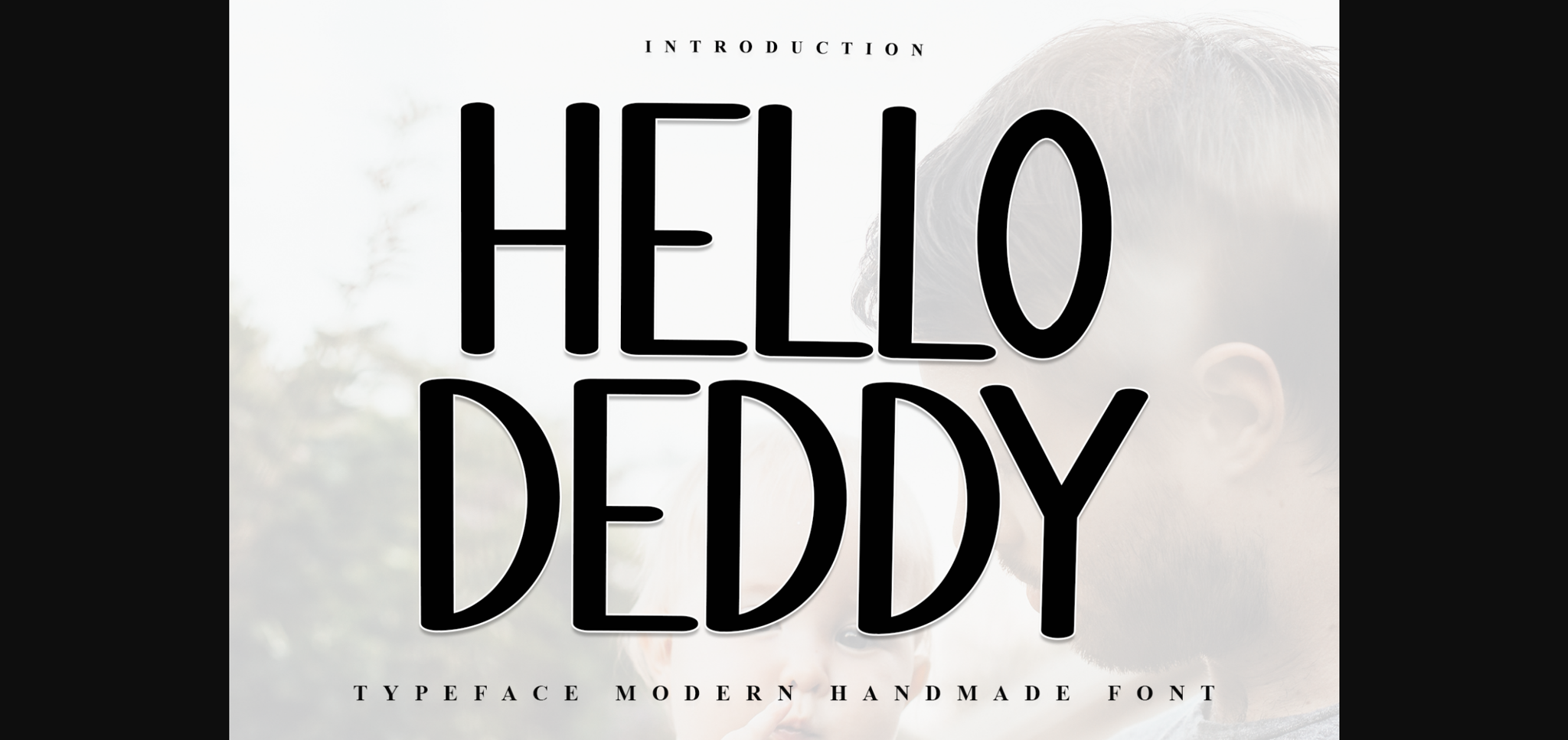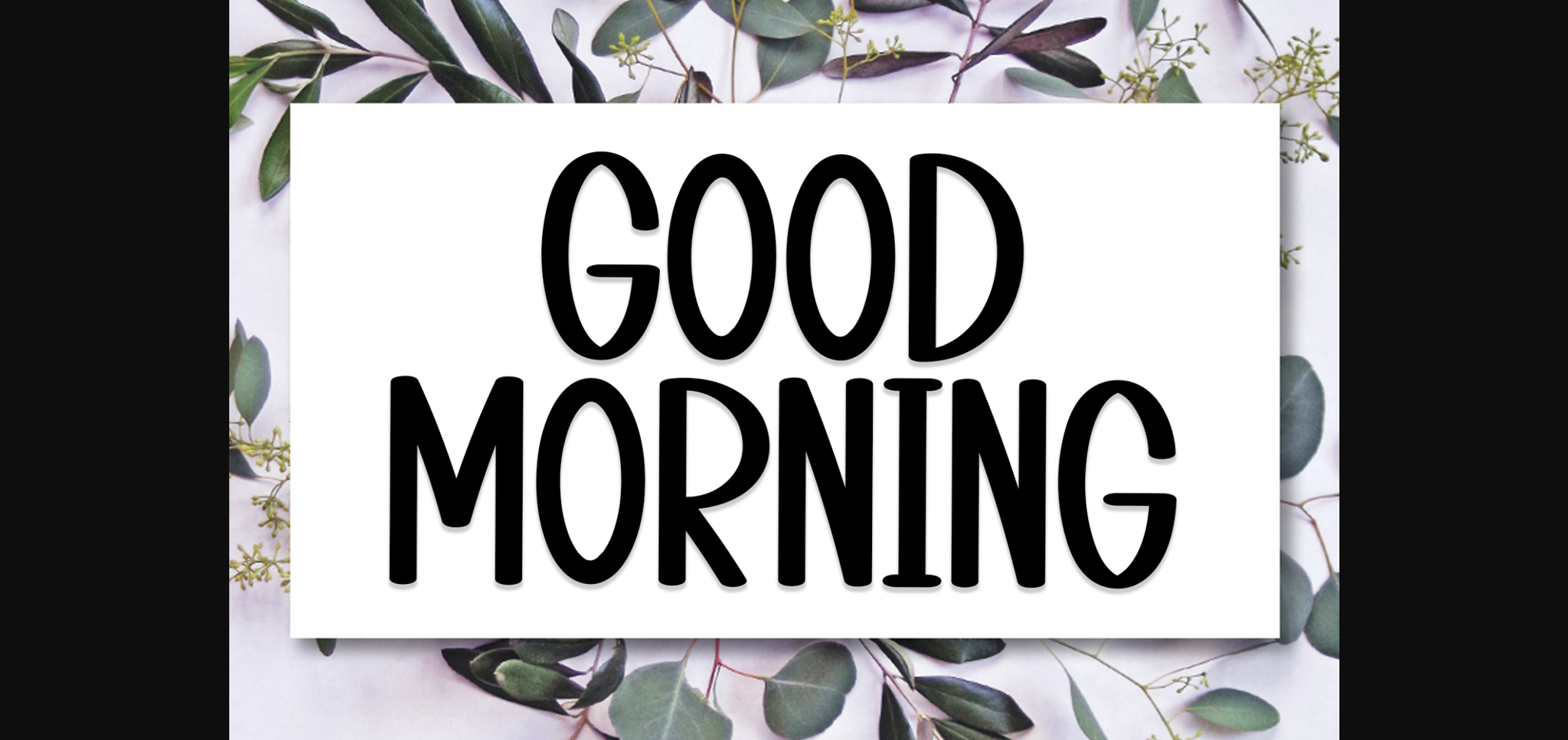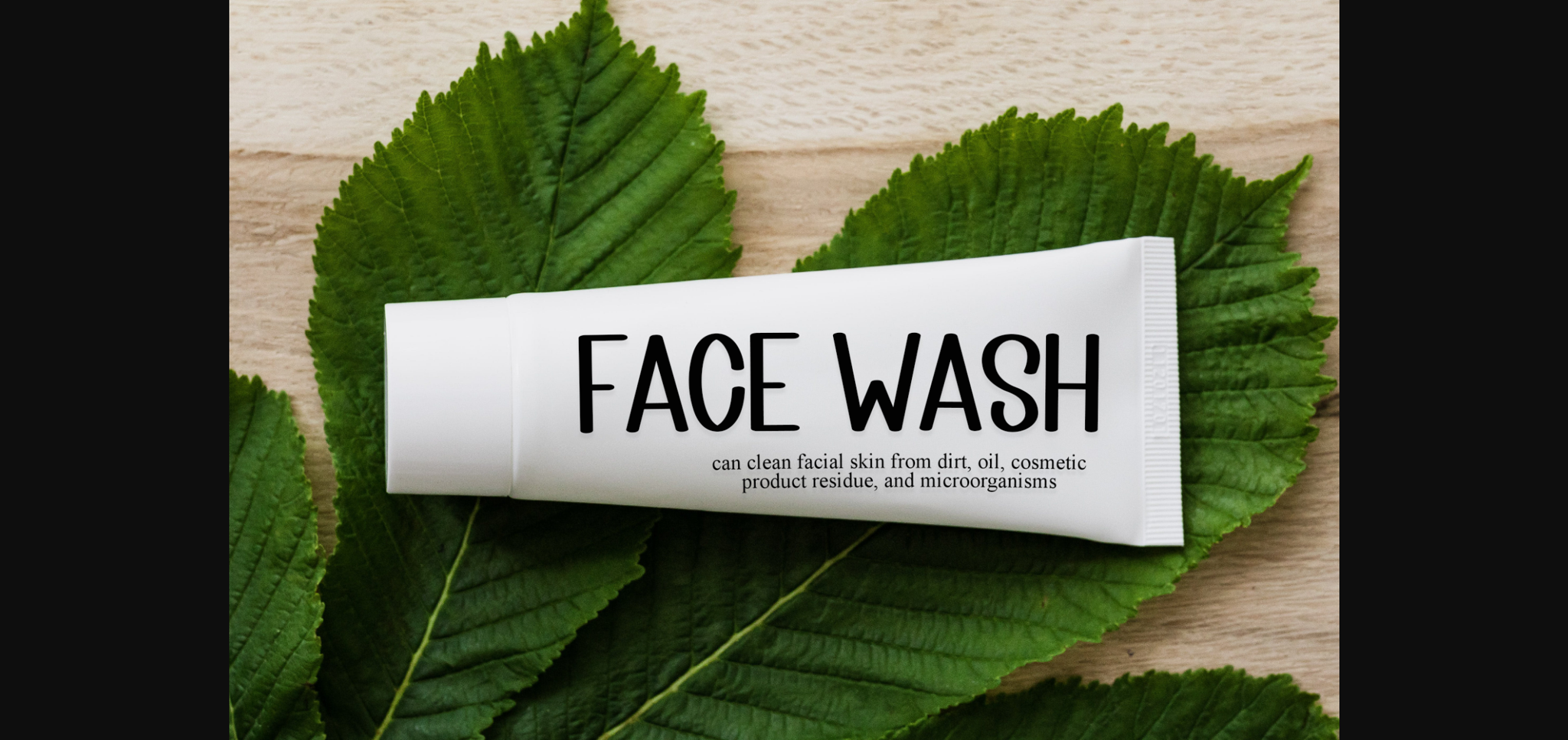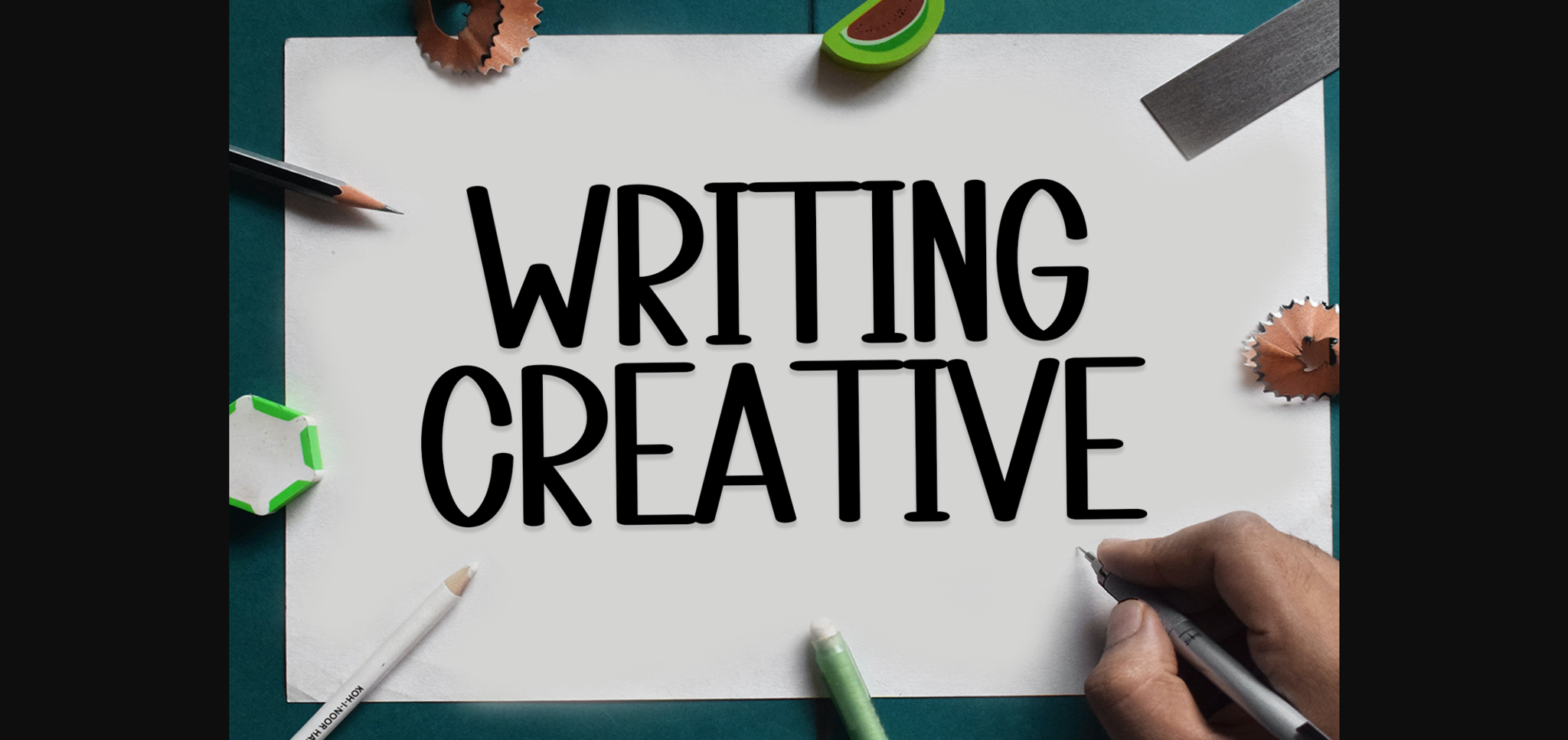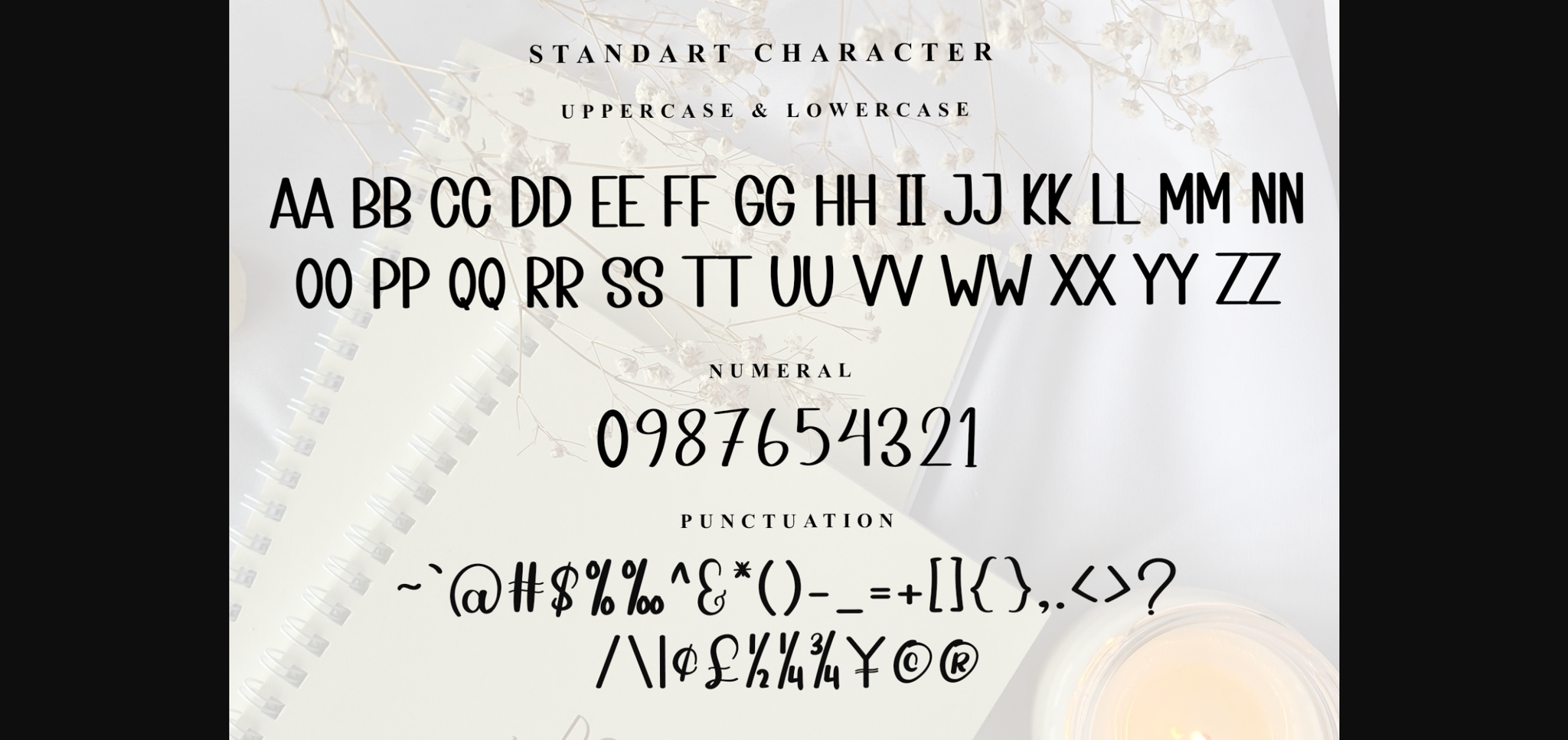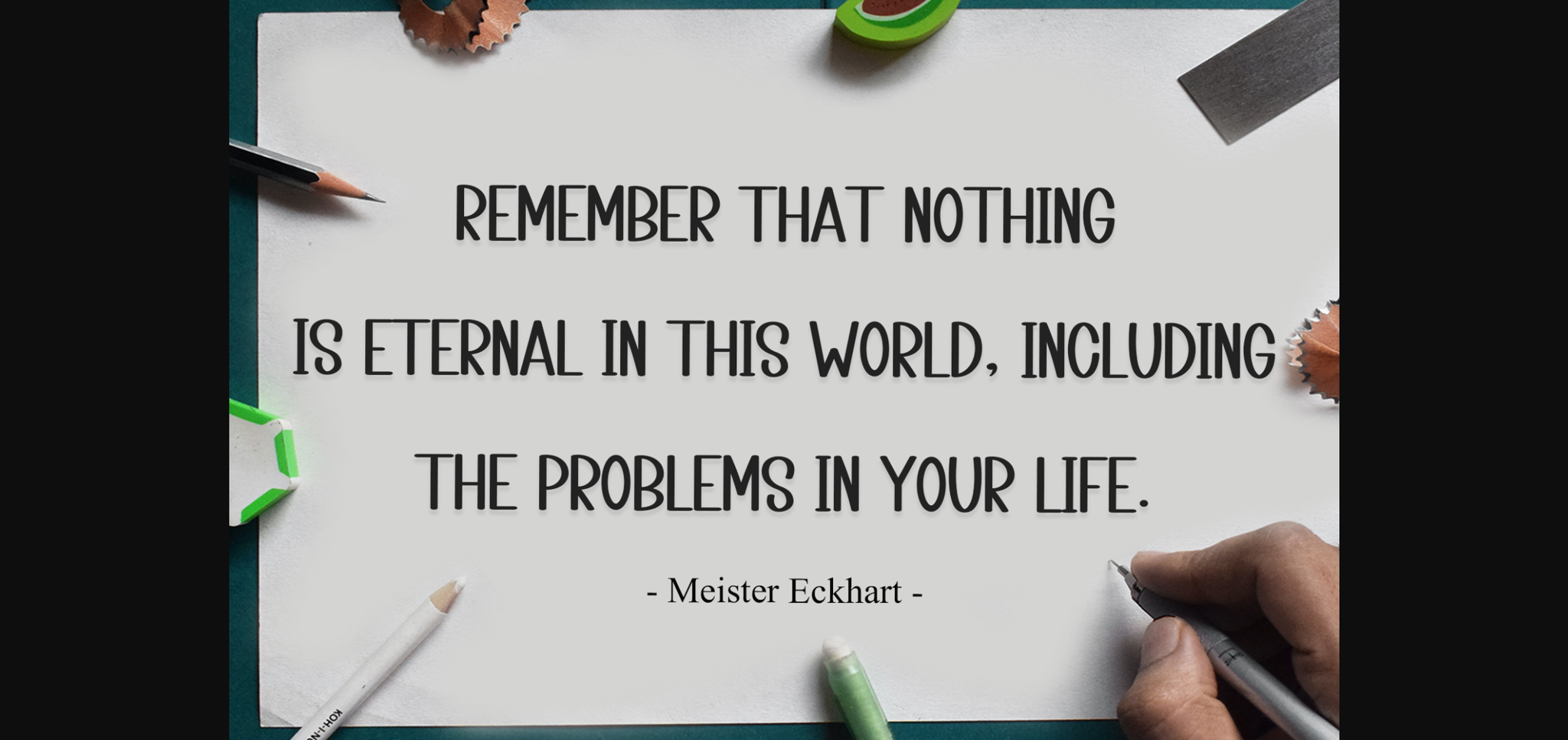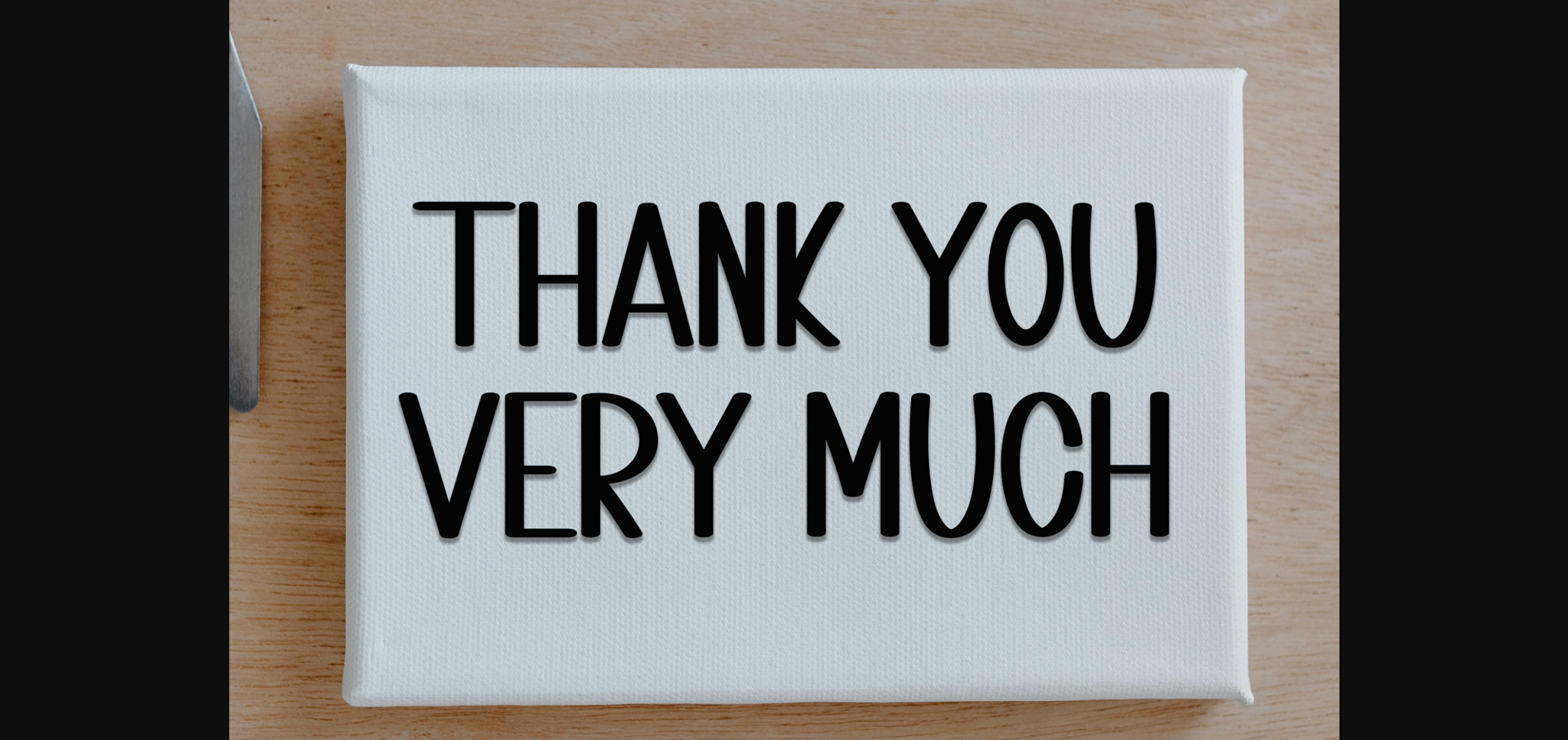
Hello Deddy Font
About Hello Deddy Font
Hello Deddy is a charming sans-serif font imbued with a sense of freshness and casual elegance. Its fluid strokes and organic lines evoke a laid-back vibe, making it perfect for various design projects. Whether used for branding, invitations, or social media graphics, Hello Deddy adds a touch of warmth and personality.